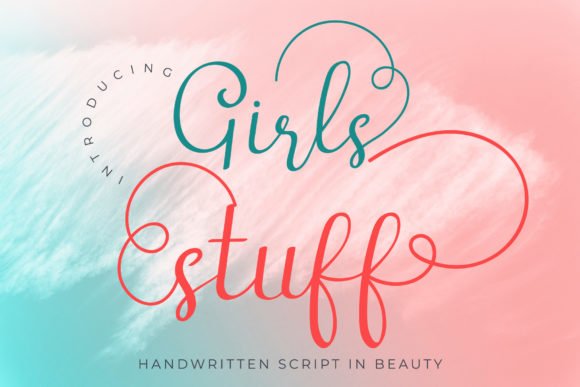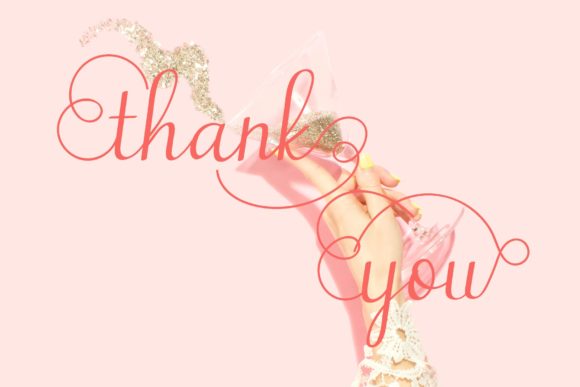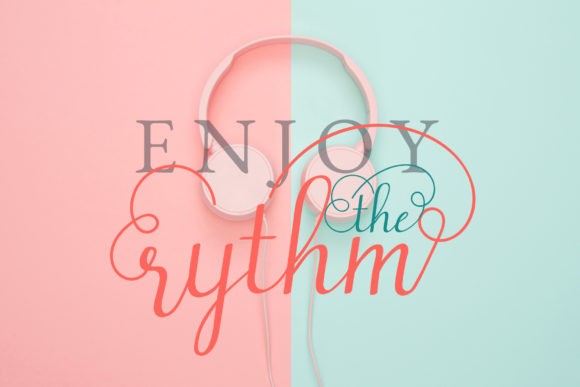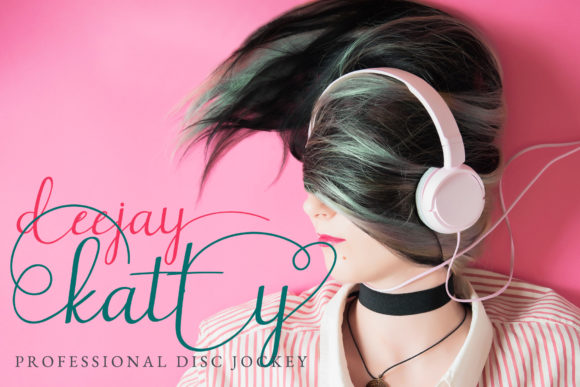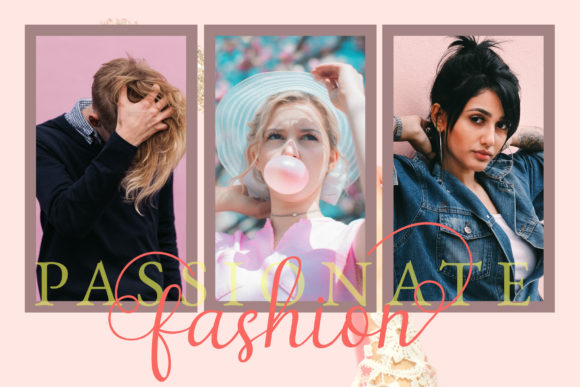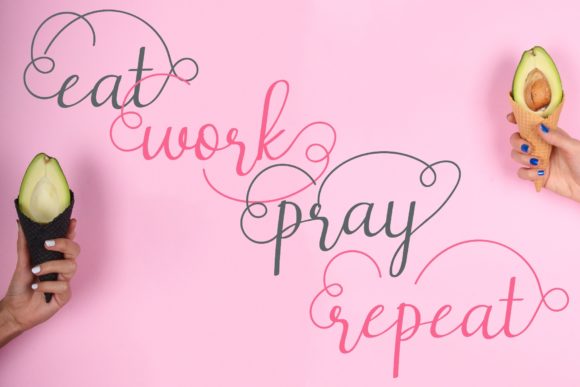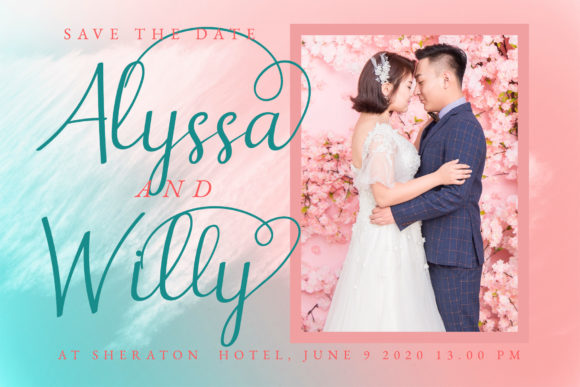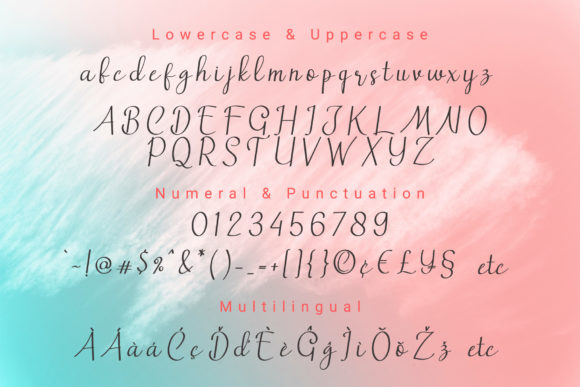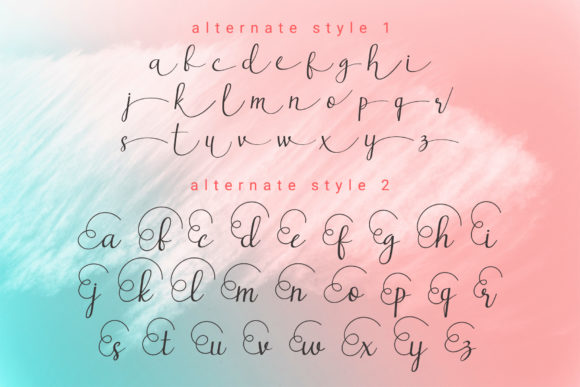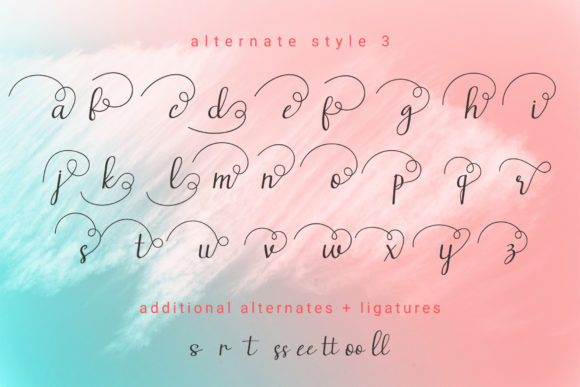
Girls Stuff Font
About Girls Stuff Font
Girls Stuff is an incredibly modern and cute script font that features gorgeous swashes and ligatures. It will turn any crafting idea into a true masterpiece!